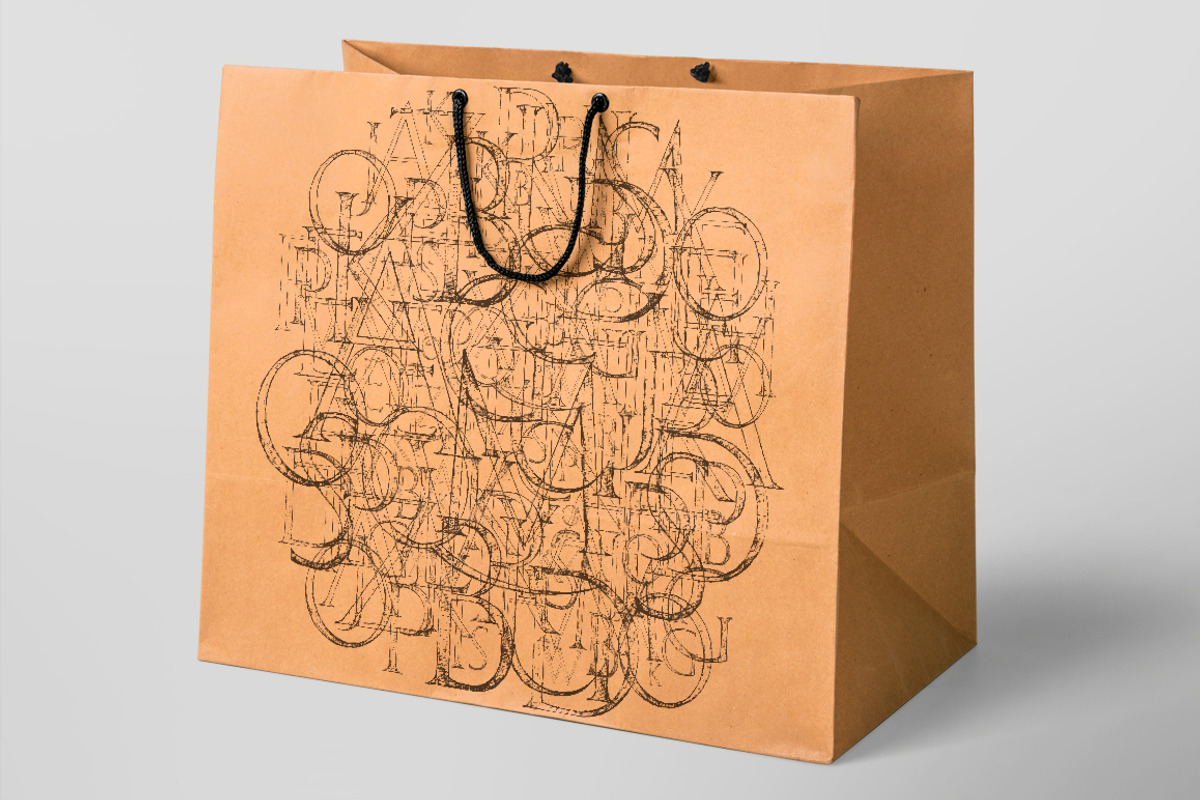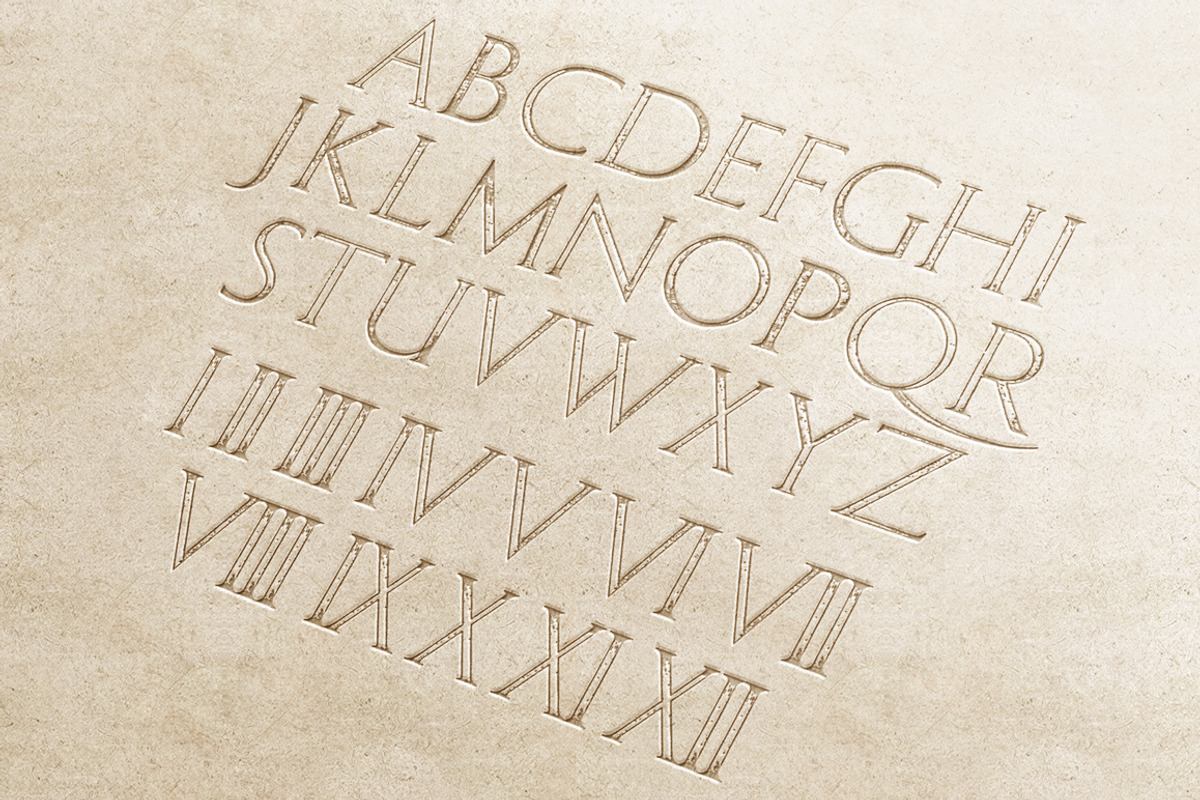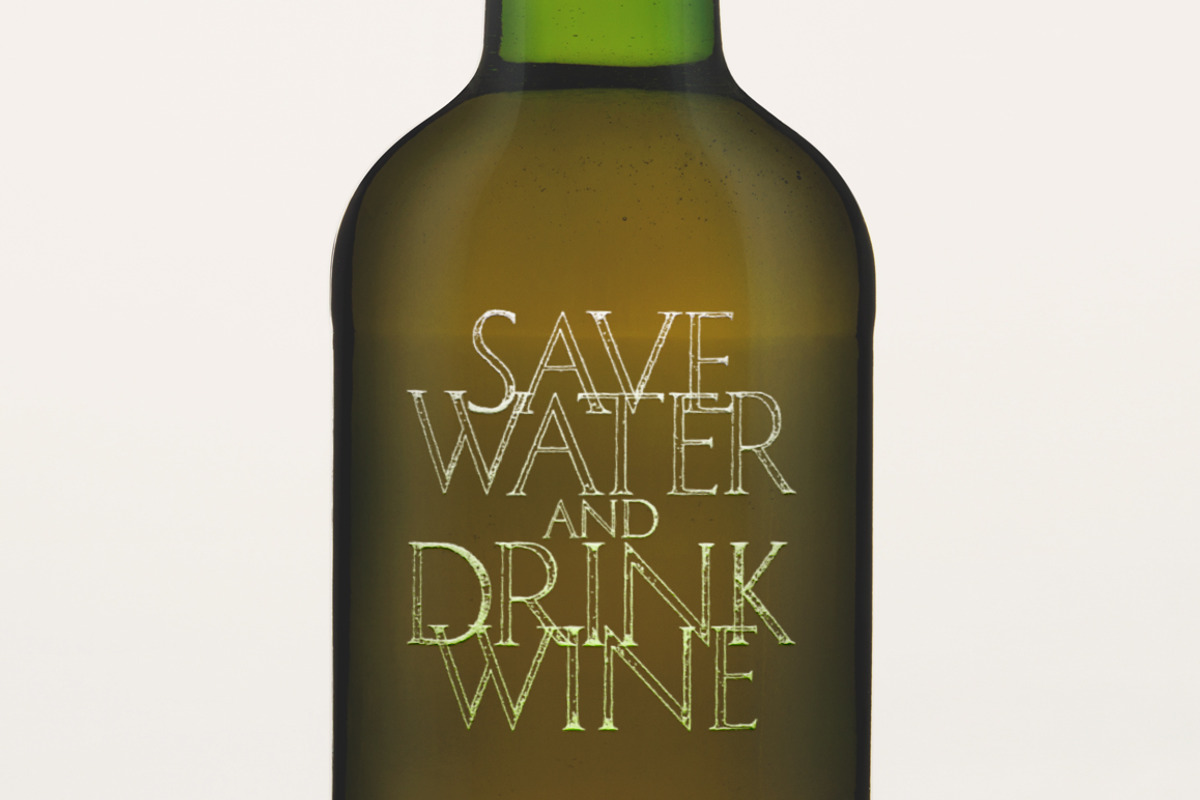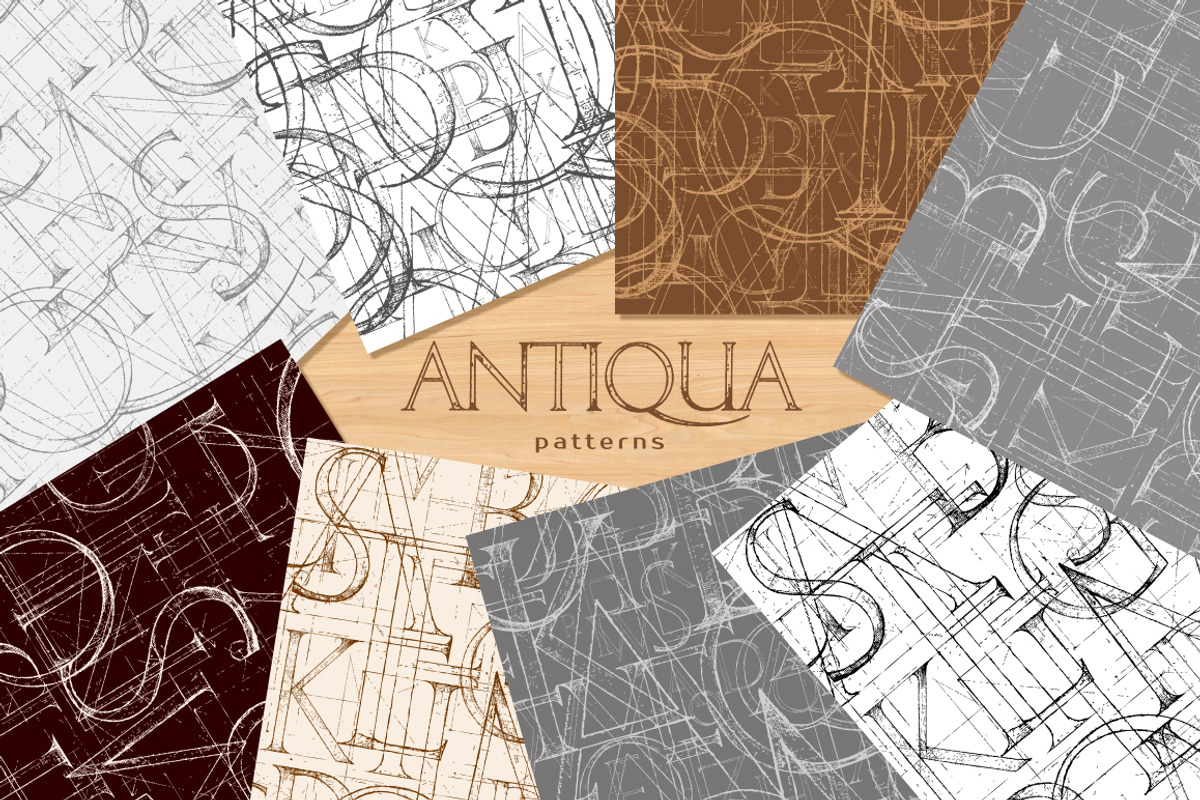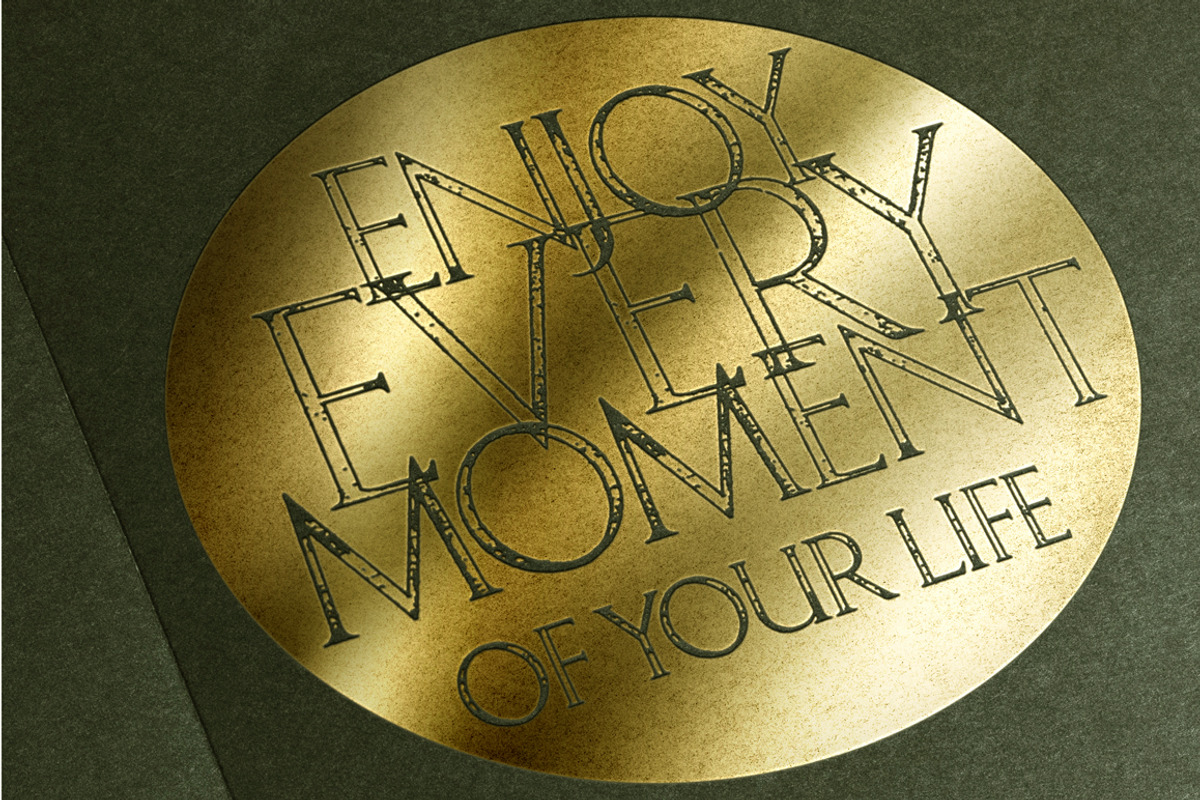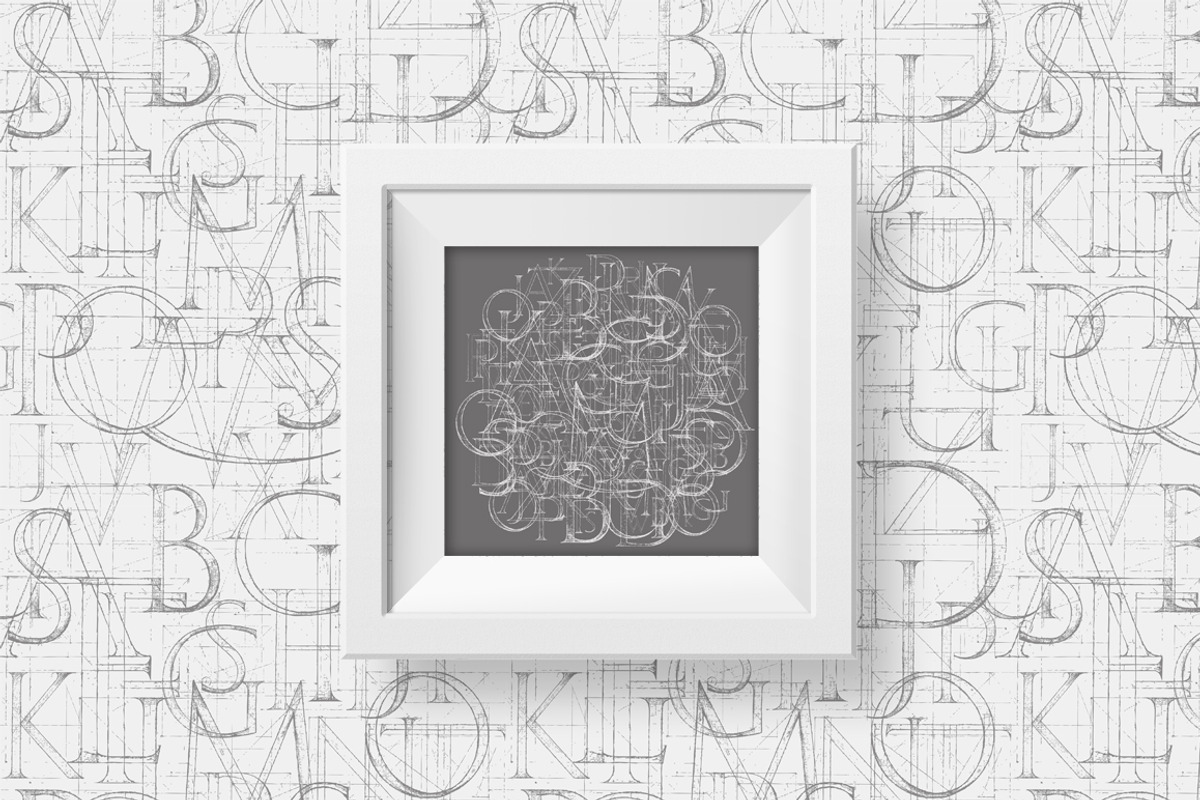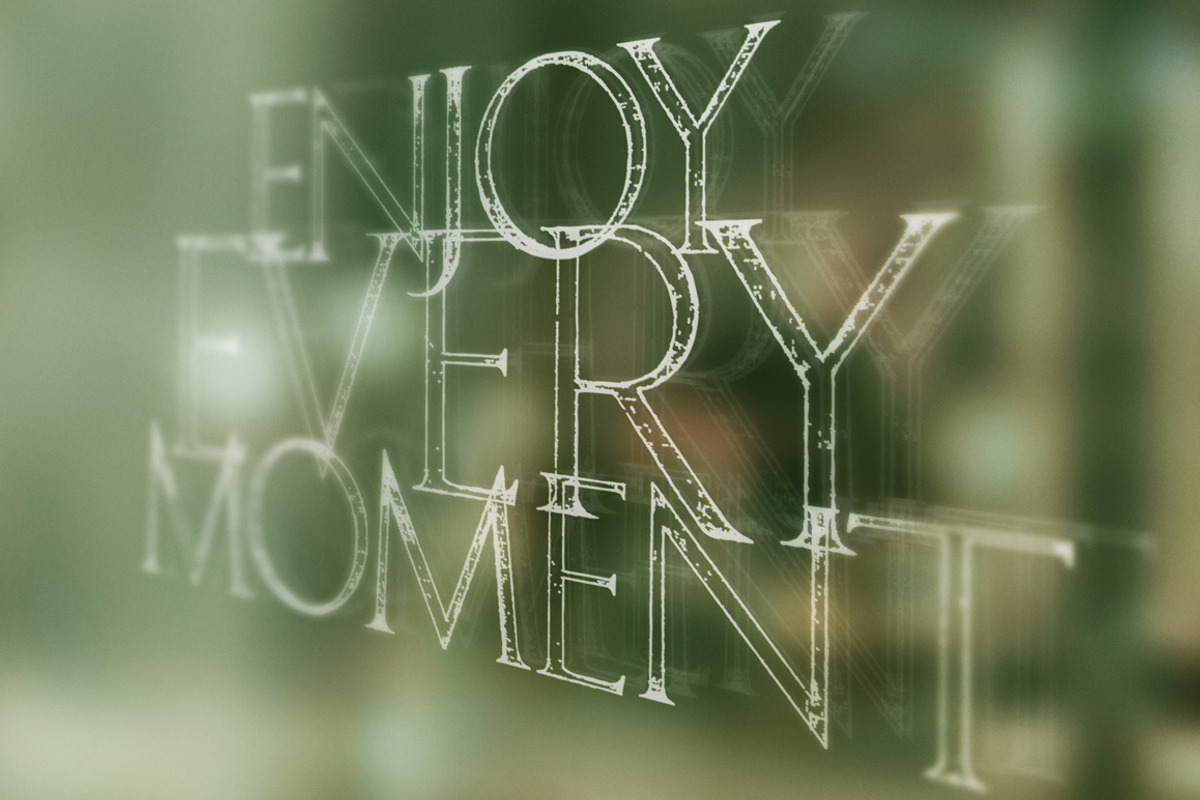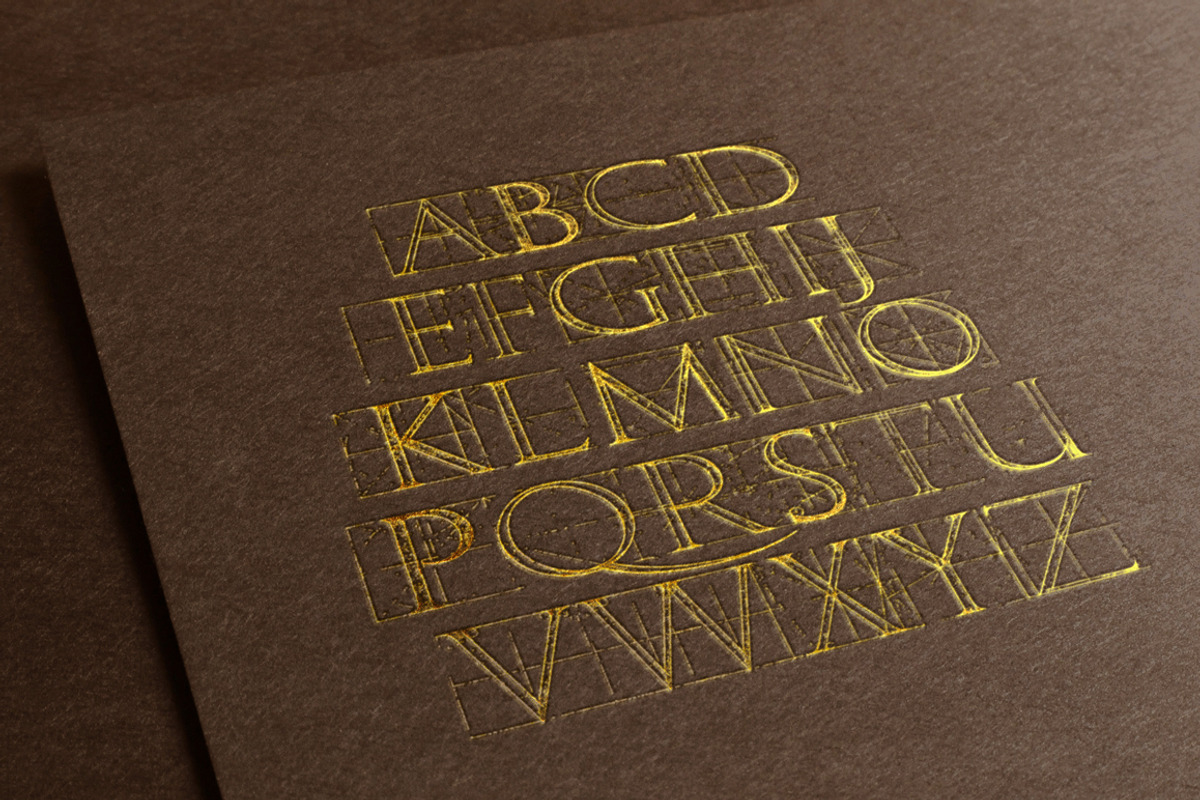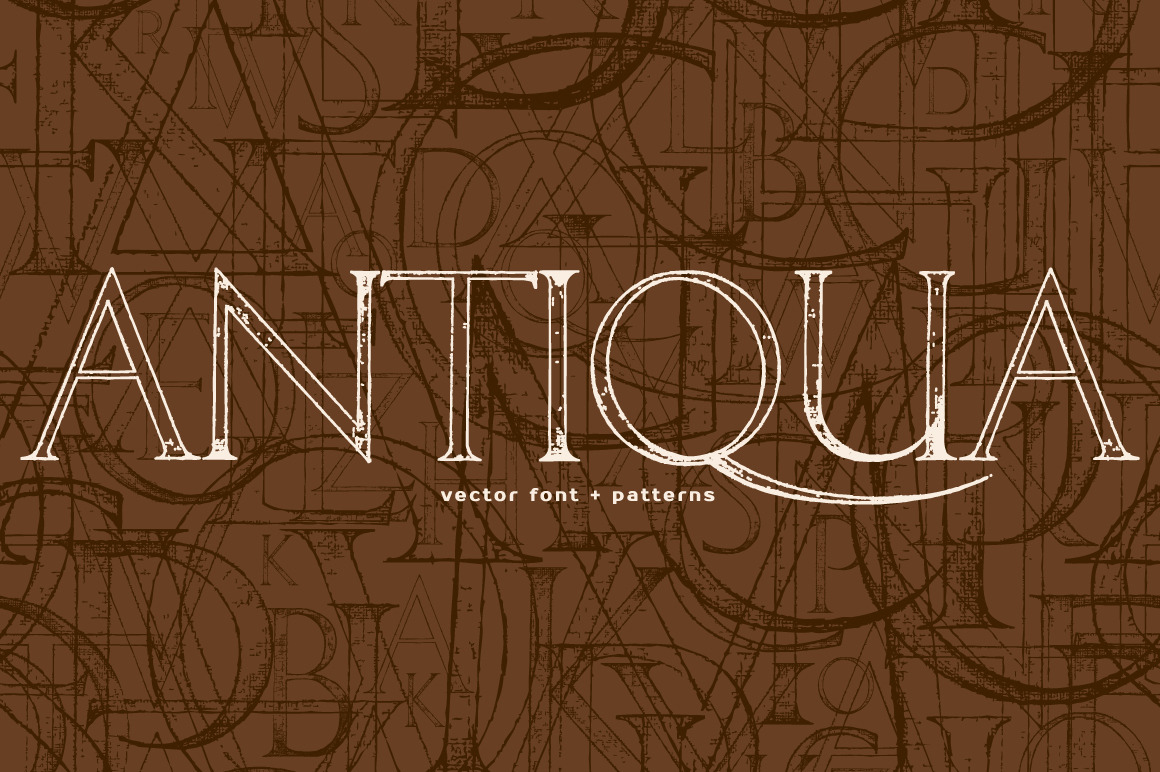
ANTIQUA Vector Font + Patterns
Antiqua is a modern roman classic alphabet built with a method of geometrical construction for large letters. This product is a bundle of vector font and hand-drawn construction sketch of ABC letters in vintage style.
How you can use it
Use this amazing vector font and ABC patterns to take your creative project to the next level, be it a headline on a leaflet, t-shirt print, or a letter pattern on a paper bag.
Here’s some examples of usage:
- Prints on fabric
- Interior wallpaper, such as in the children's room
- Web design, as a background pattern
- Print design, as pattern for booklets, folders, tickets, cards
- Souvenirs production
- Wedding and other holidays invitation